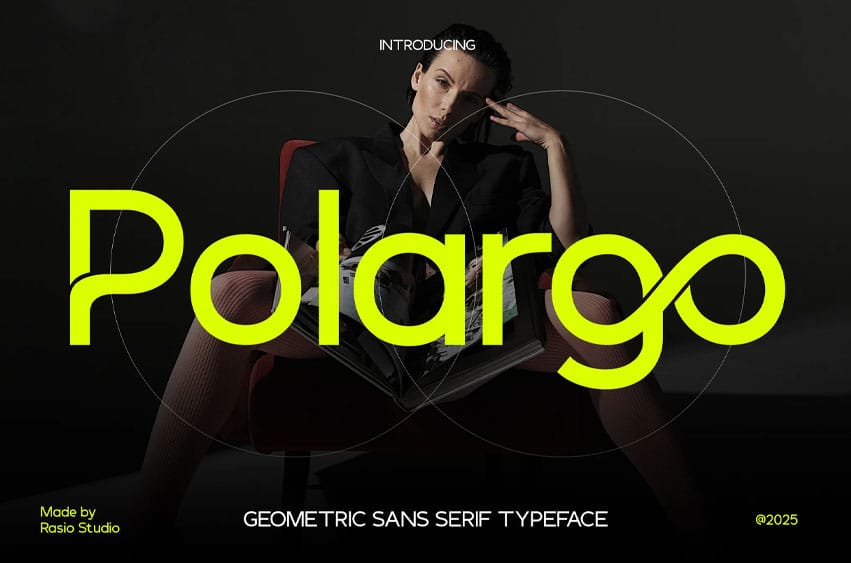
Polargo Font is a modern geometric sans serif typeface with a futuristic and stylish tone, designed to deliver maximum clarity and high-impact presence. Featuring rounded letterforms, consistent monoline strokes, and sleek character design, Polargo balances structure with expressiveness. Its tech-inspired aesthetic makes it perfect for branding, digital interfaces, fashion editorials, technology ads, modern posters, app design, and creative marketing. Whether used for bold headlines or minimalist logotypes, Polargo stays sharp, scalable, and visually captivating in both print and screen use.
Polargo is a modern geometric sans serif typeface with clean, rounded, and symmetrical letterforms. It blends minimalism with a futuristic edge, making it ideal for professional, stylish, and high-impact designs. With distinctive curves and unique ligatures. Polargo offers a bold visual identity perfect for branding, logos, tech interfaces, editorial layouts, and luxury-focused projects.
Suitable for logo design, fashion branding, tech startup identity, website headers, editorial layouts, UI/UX design, product packaging, business presentations, futuristic posters, luxury branding, clean advertising visuals